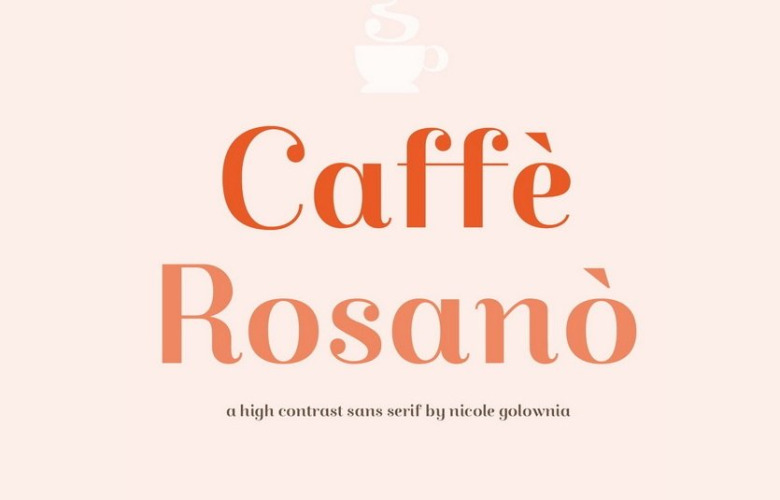
Caffè Rosanò Font
This is a bold minimalist elegant modern font influenced by the elegance of serif Didone styles with the personality of a script style. Inspiration for this font comes from a delicious caffè in Florence, Italy.
The intended usage is signage for a wall menu at a coffee shop. Unique features include ball terminals and swashes. Please note that Font is for personal use only.